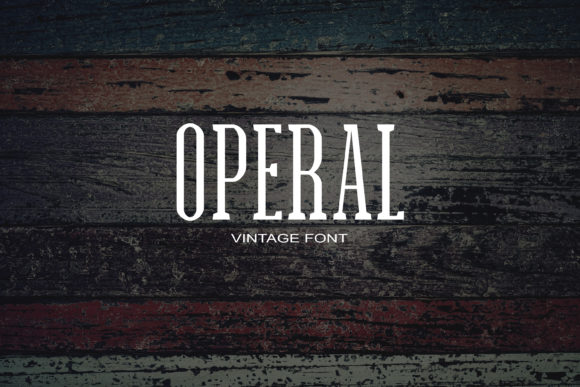
Operal Font
**Introducing Operal Font: Embark on a Typographical Odyssey**
Step into the realm of typography with Operal Font, a serif masterpiece crafted by DmDesignsStoreArt. Experience the timeless elegance of a font that exudes sophistication and strength. Each character, meticulously designed, invites you to weave captivating stories with every stroke.
Operal's curves dance gracefully, whispering tales of bygone eras while its sharp edges lend an air of decisive modernity. Elegant, precise, and unforgettable, this font is destined to leave an enduring mark on your designs.
**Unleash the Power of Serif**
Serif fonts, like Operal, possess a captivating charm, adding a touch of timeless sophistication to your creations. The delicate serifs, like tiny brushstrokes, enhance readability, ensuring your words flow effortlessly from page to screen.
**A Font for Every Occasion**
Operal's versatility knows no bounds. Whether you're crafting elegant invitations, captivating marketing materials, or crafting a timeless logo, Operal will elevate your designs to new heights. Its versatility empowers you to convey your message with style and impact, leaving a lasting impression on your audience.
**Immerse Yourself in Typographical Beauty**
Indulge in the sheer beauty of Operal Font. Its meticulously crafted curves, sharp angles, and intricate details will ignite your creativity and inspire you to create breathtaking designs. Each letterform is a masterpiece, inviting you to explore the depths of typography and express your individuality.